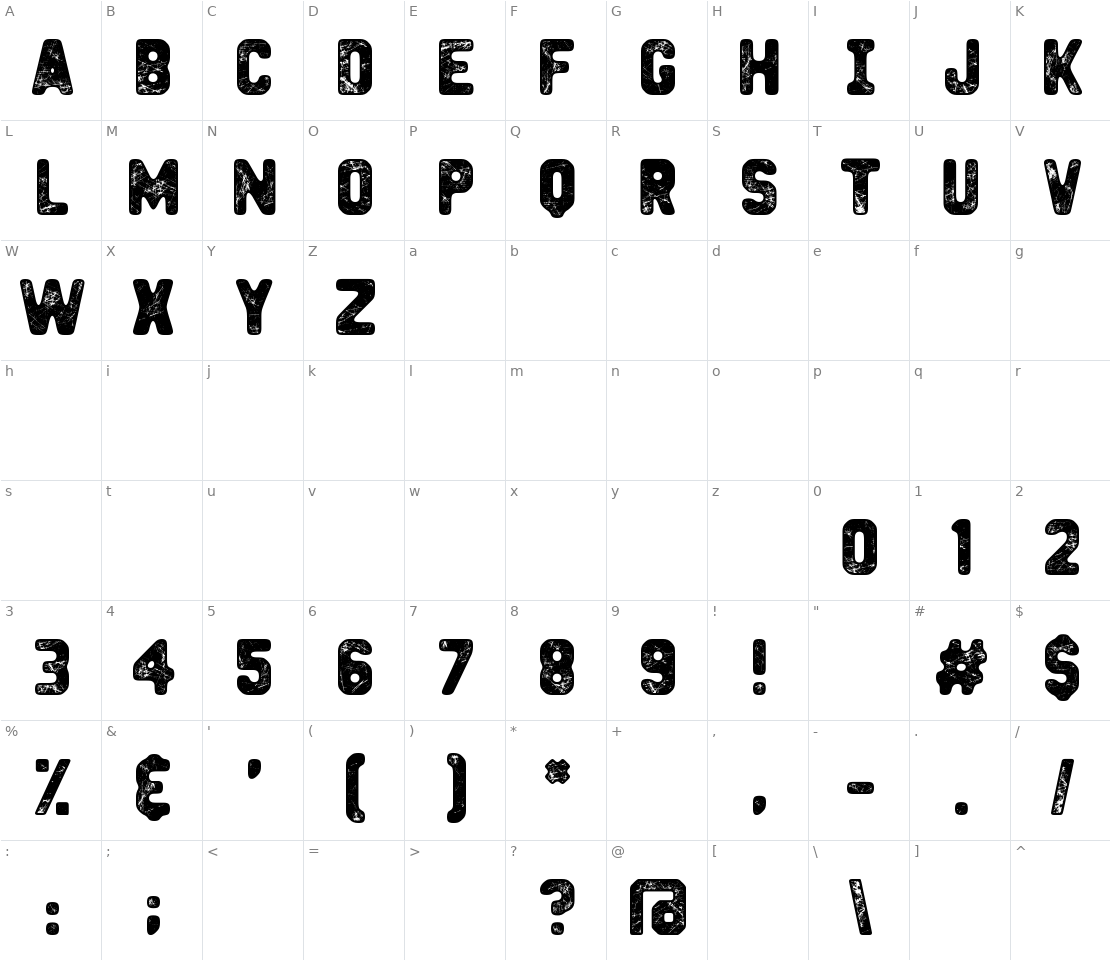
Heavy Metal Box
Heavy Metal Box is a bold, heavy display face from imagex with rounded letterforms that have been roughed up with scratchy, grungy texture across every surface. The weight is substantial but the distressing keeps it from feeling too clean, giving each character a worn, battered quality that fits right into poster design, album artwork, and dark-themed branding. Best used big, where the scratched details and gritty edges can do their thing.